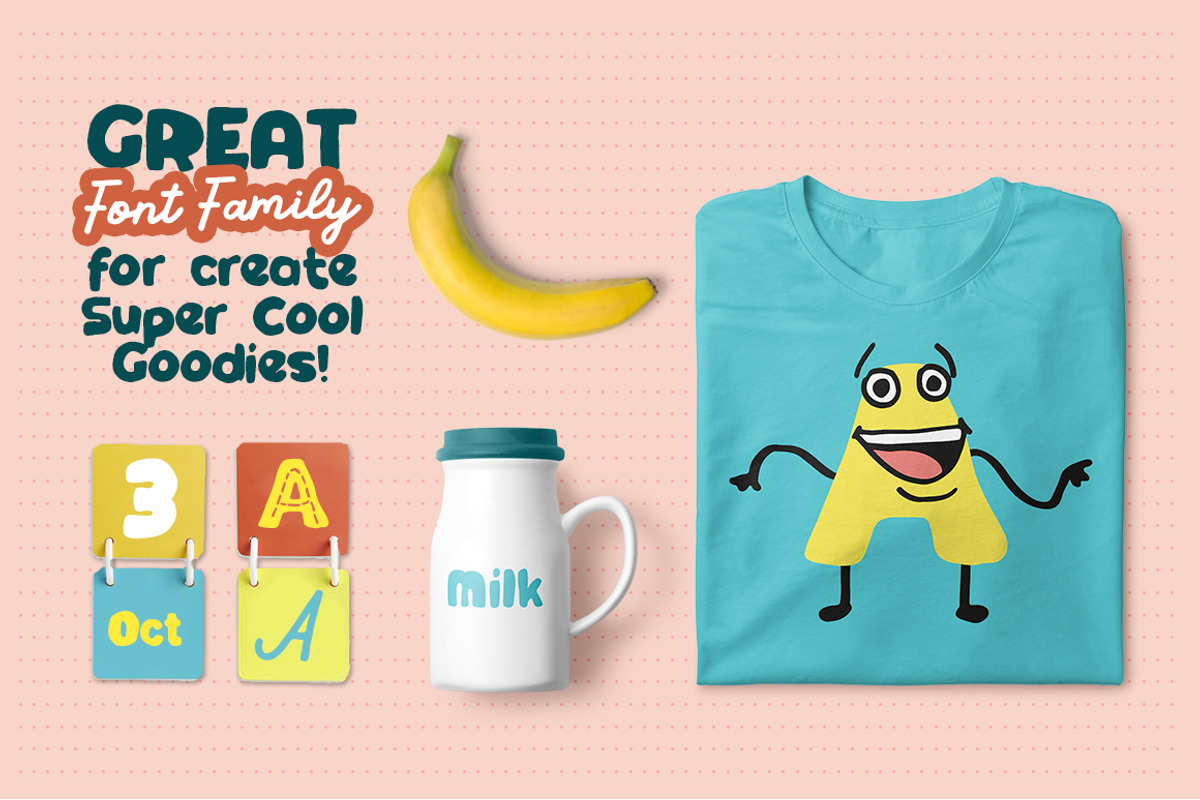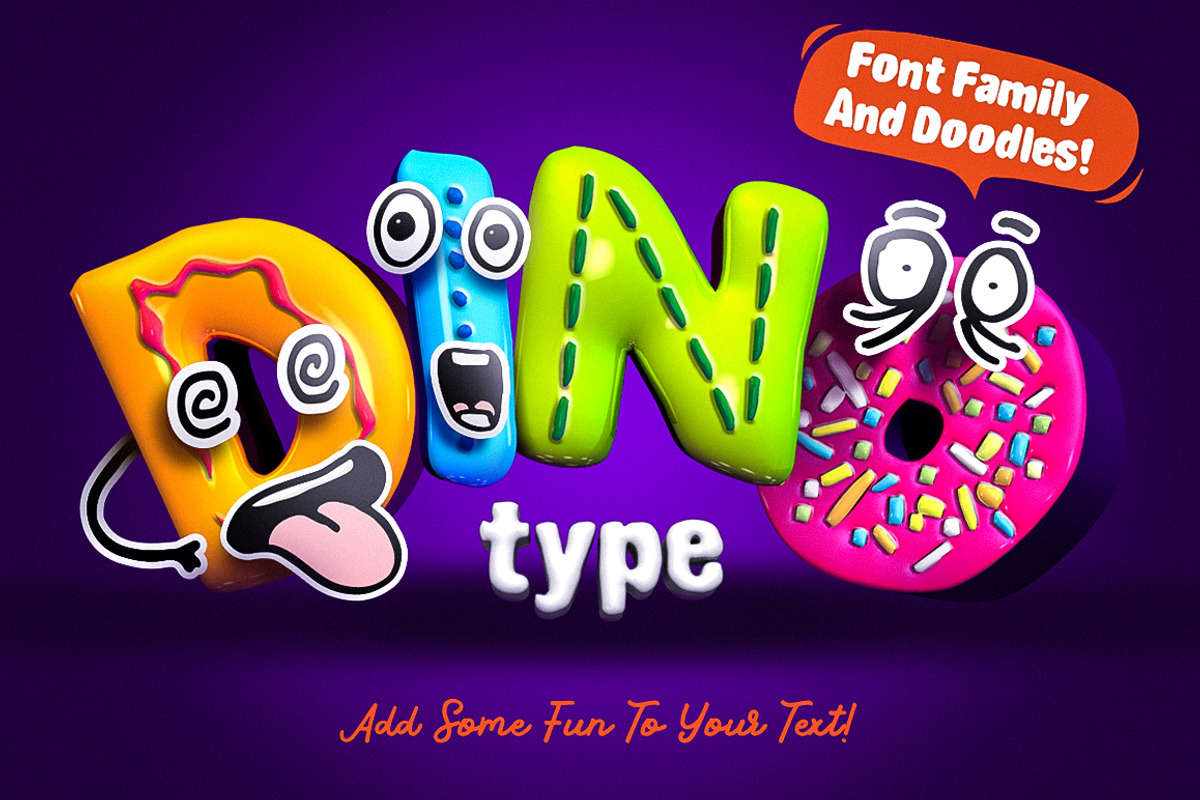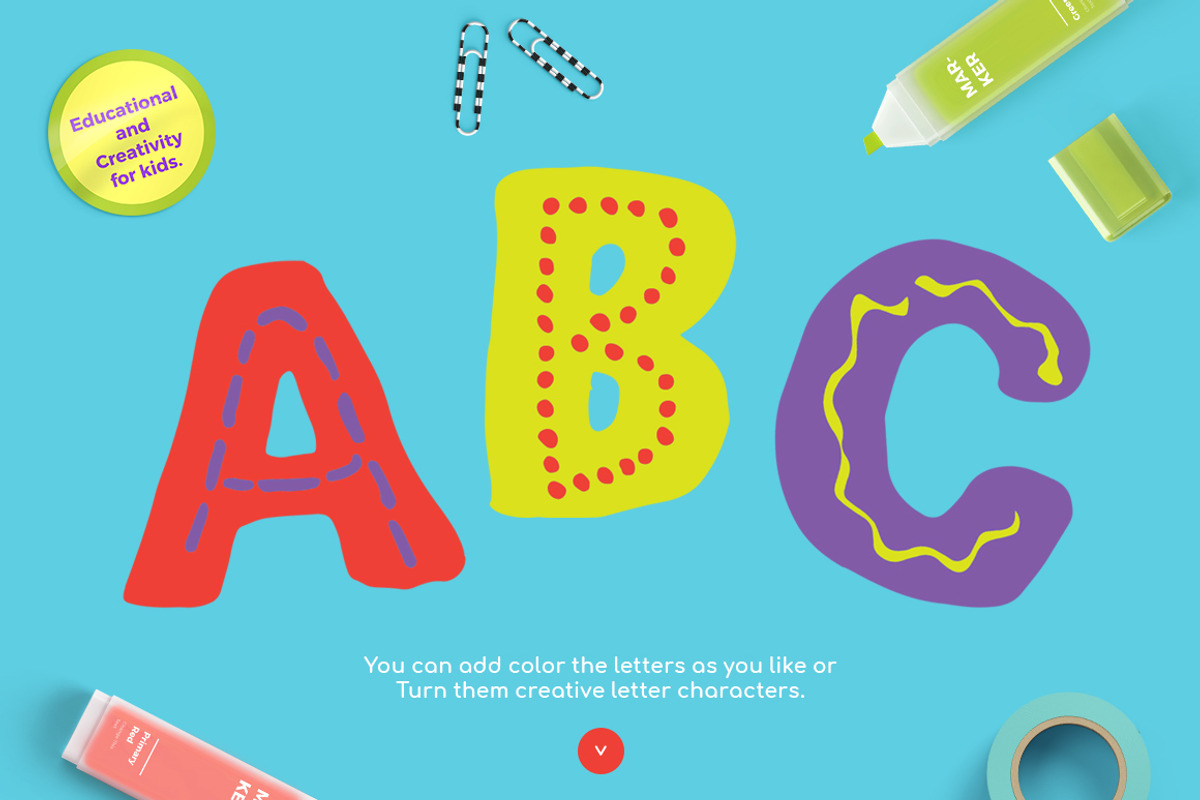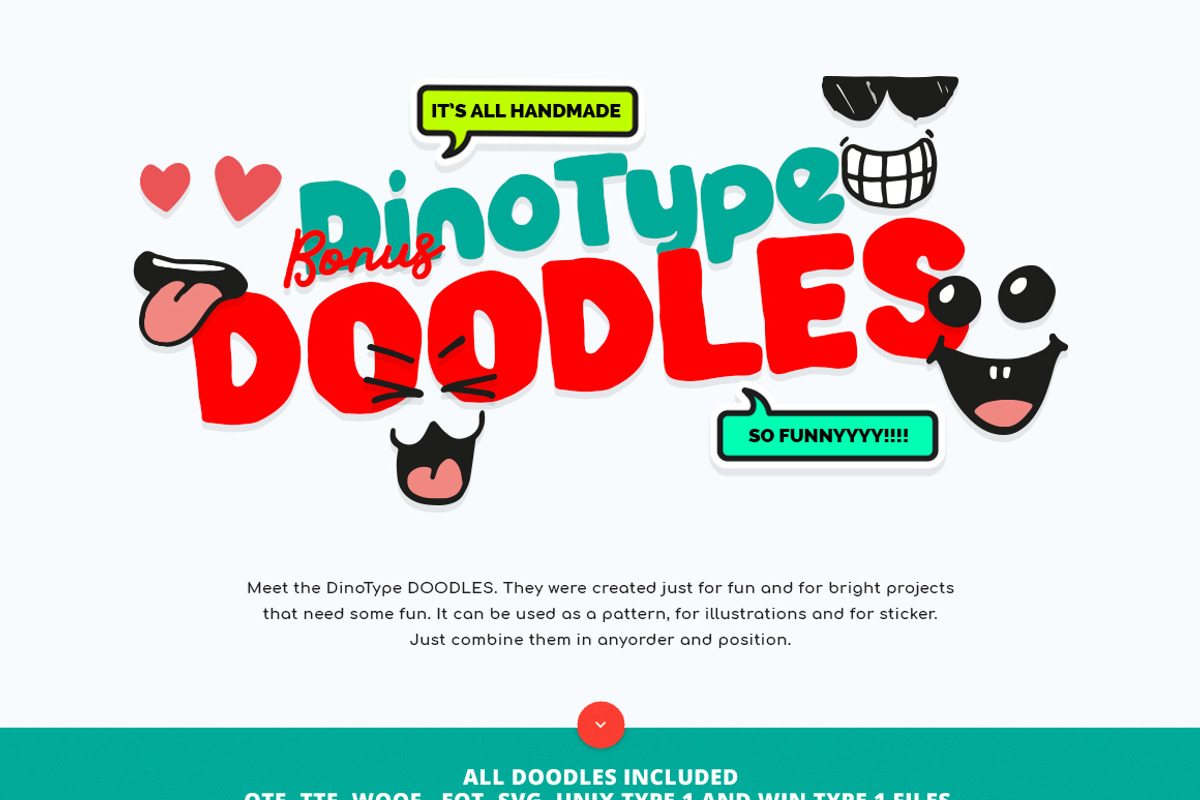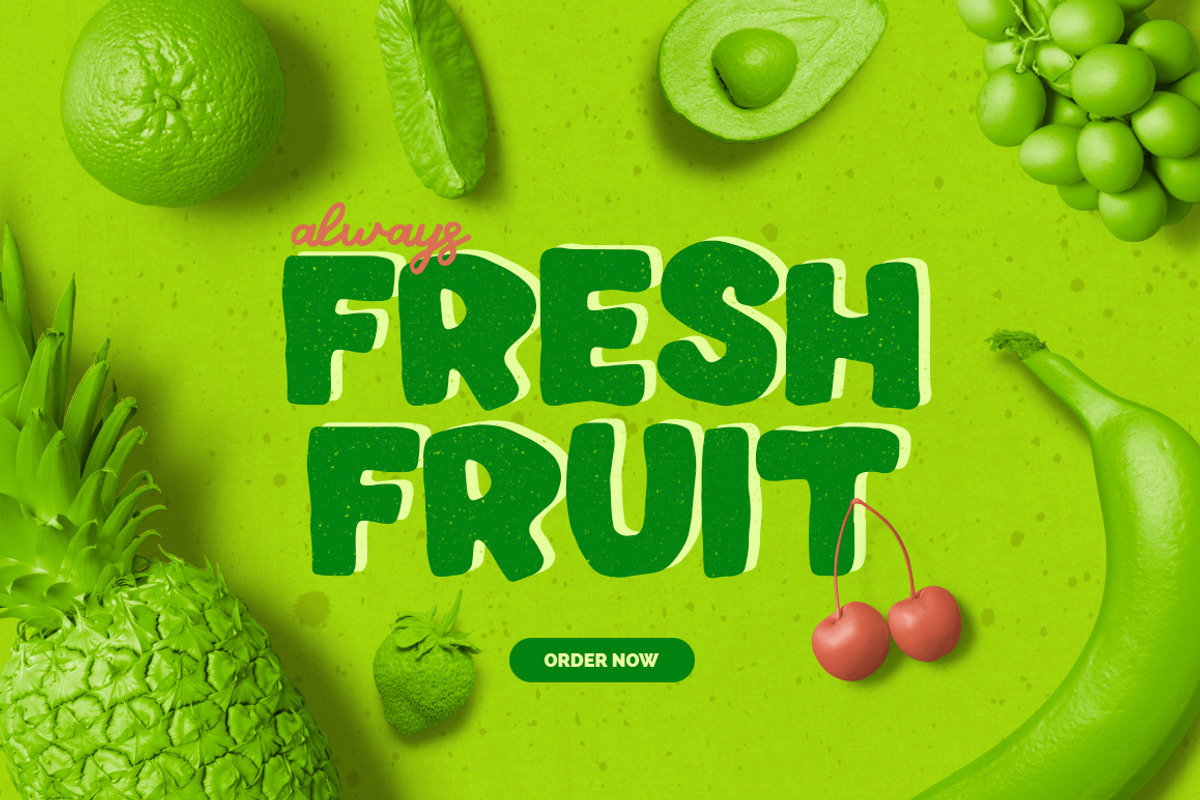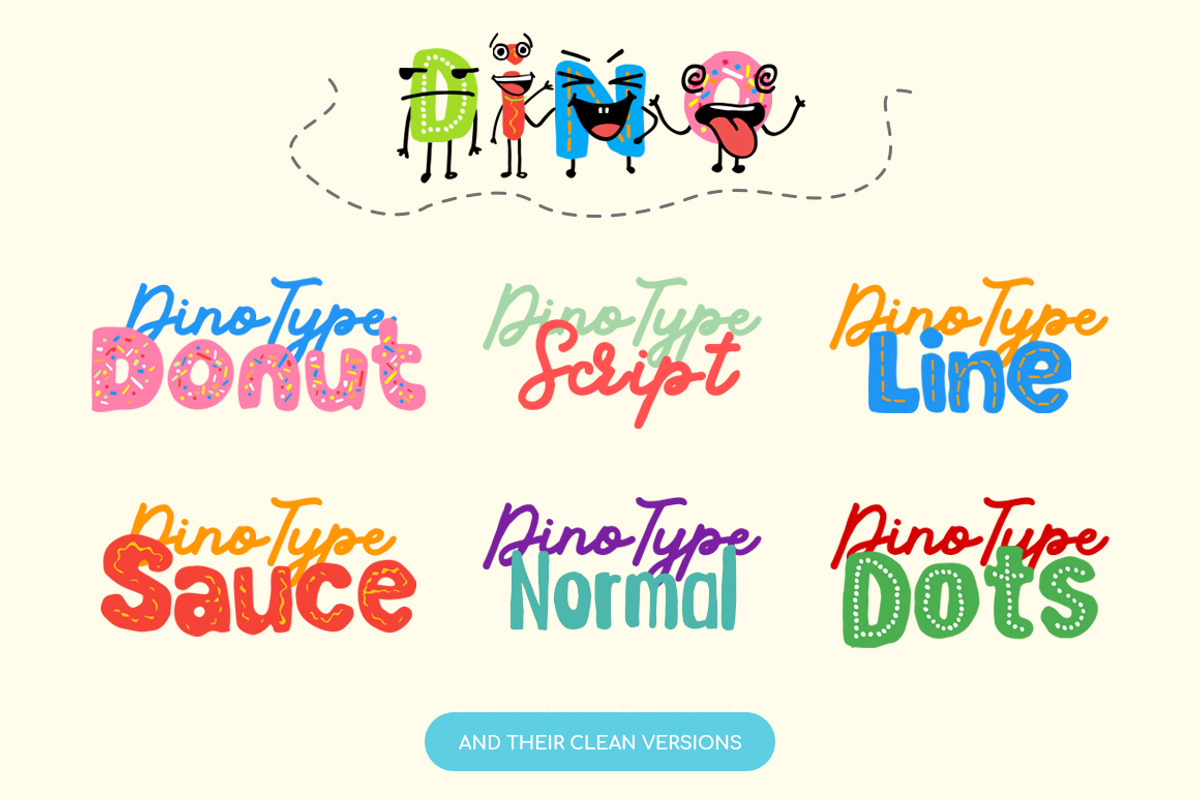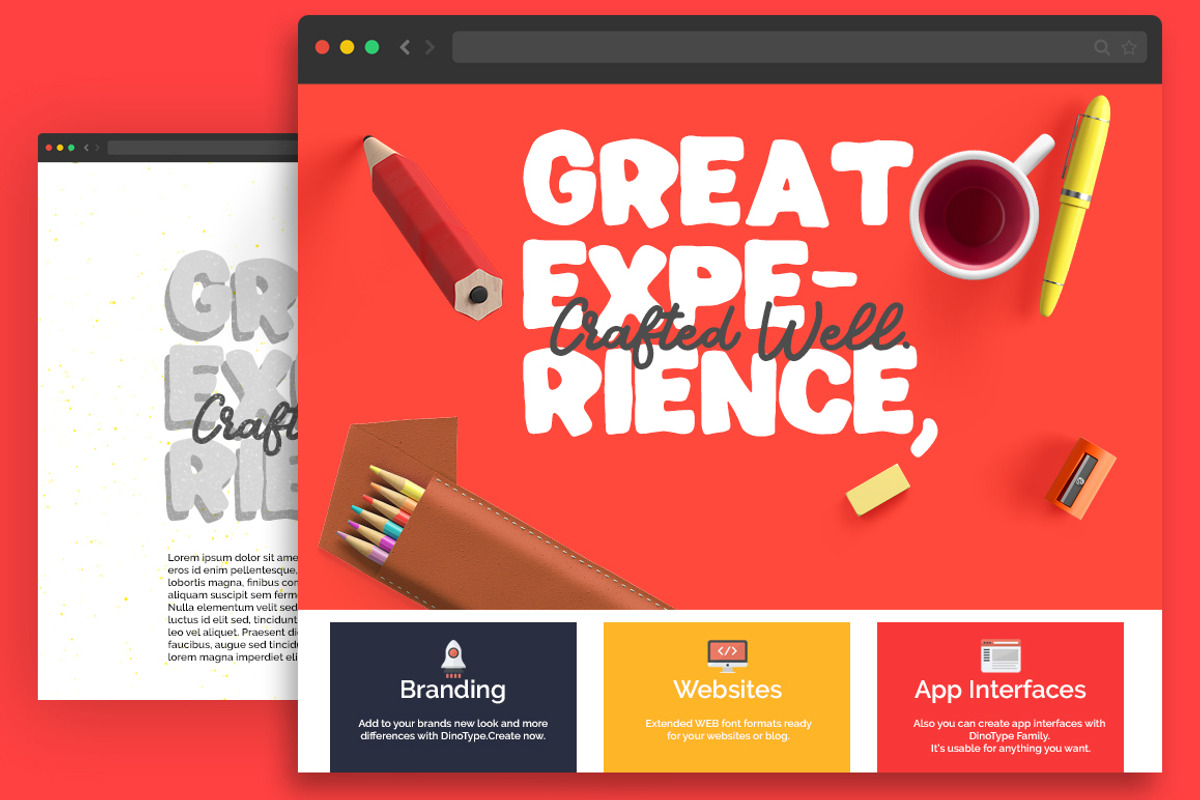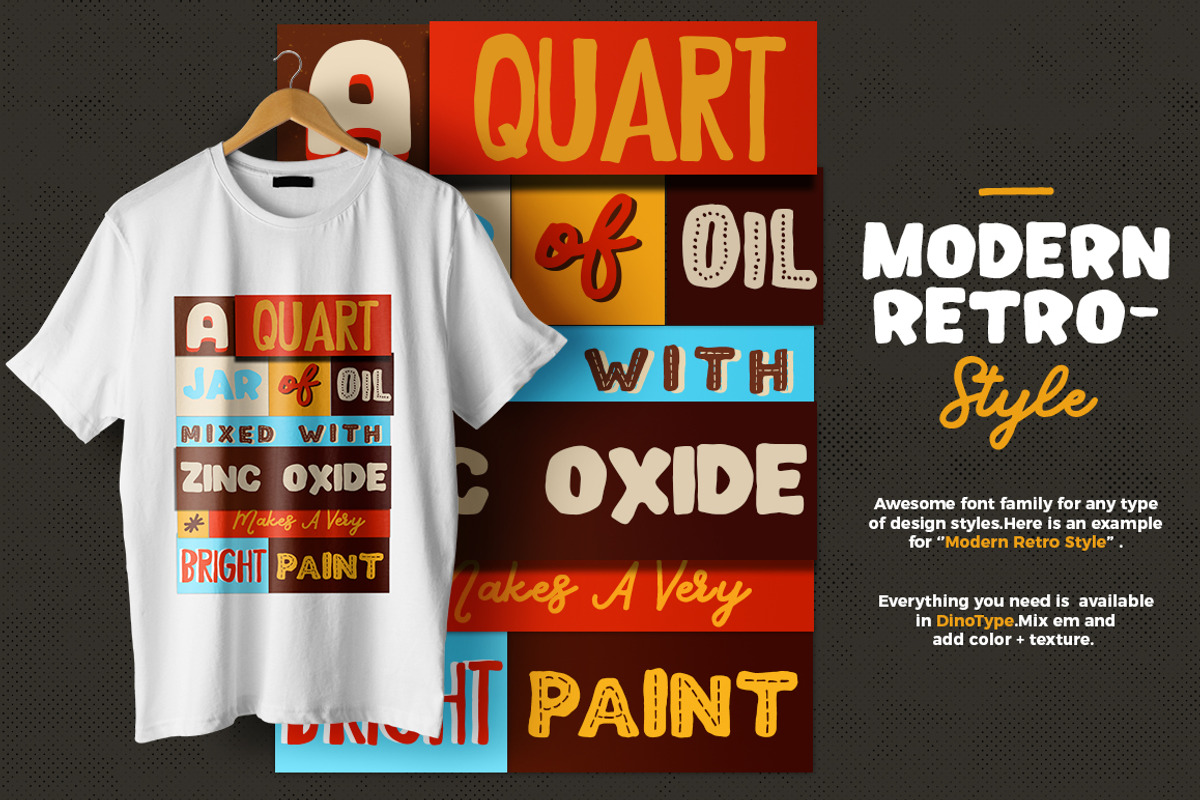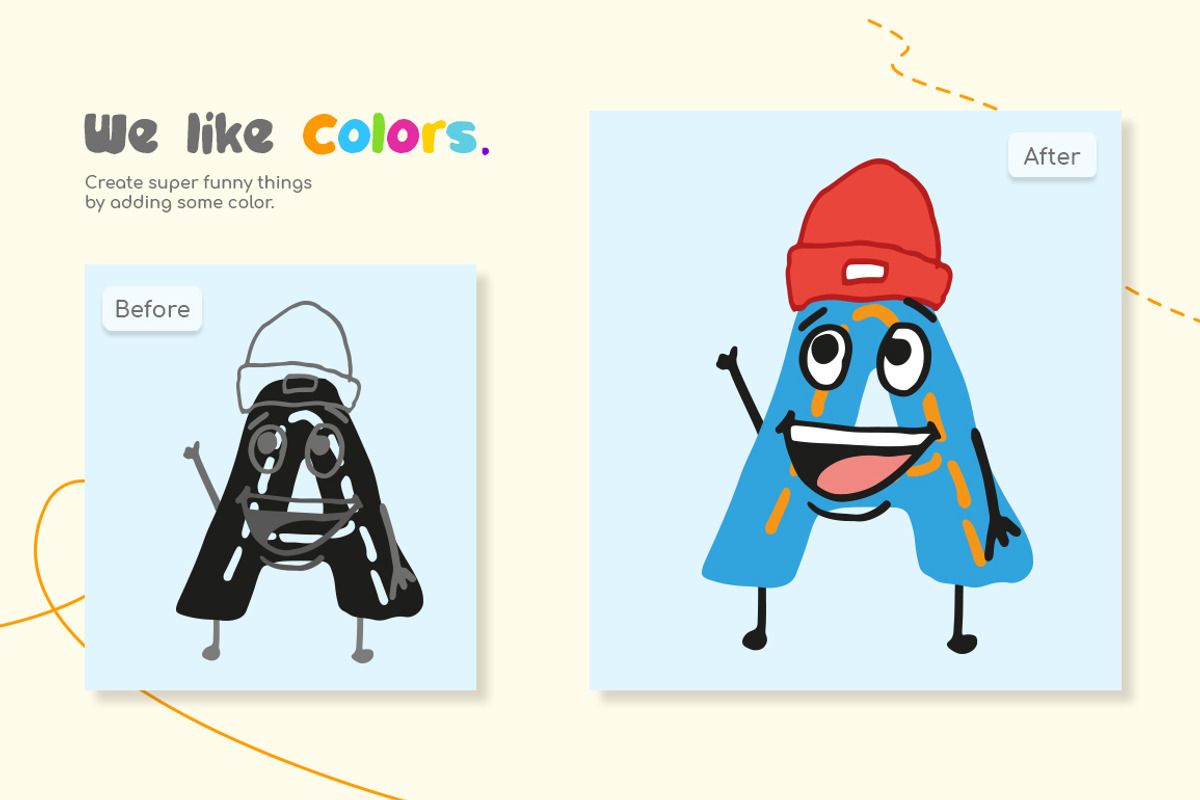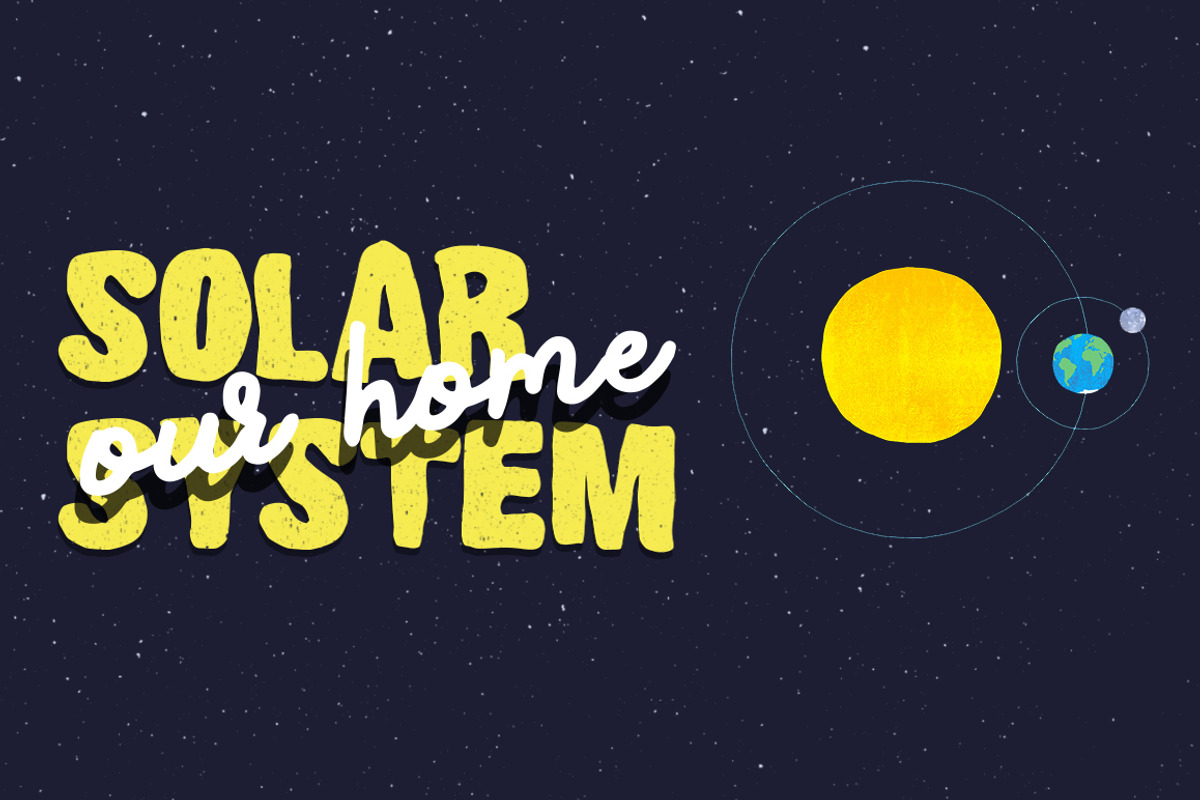
DinoType Educational Font Family
What'up Mondayers! Today is the big day cause you meet with DinoType!
Super fun and a surprising font with unlimited variety. Are you tired of writing? do you want to have some fun? Why do not you try DinoType?
Create funny letter characters today!
DinoType Font Family has fun doodles besides. So you can make awesome letter characters with DinoType Doodles!
DinoType is so cool. Why? :
Creative and Educational
- Turn the imaginative ideas into reality. Also let your kid create their own goodies.
Easy to Use
- This not a layered font family so you can use easly. Just tap the letter tool and add some color.
Multilanguage Support
Fun
- Kill the boring letters and illustrations.
Customizable
- Fully customizable font family and bonus doodles.
DinoType Donut
DinoTypeDonut Clean
DinoType Dots
DinoType Dots Clean
DinoType Doodles
DinoType Line
DinoType Line Clean
DinoType Sauce
DinoType Sauce Clean
DinoType Normal
DinoType Script